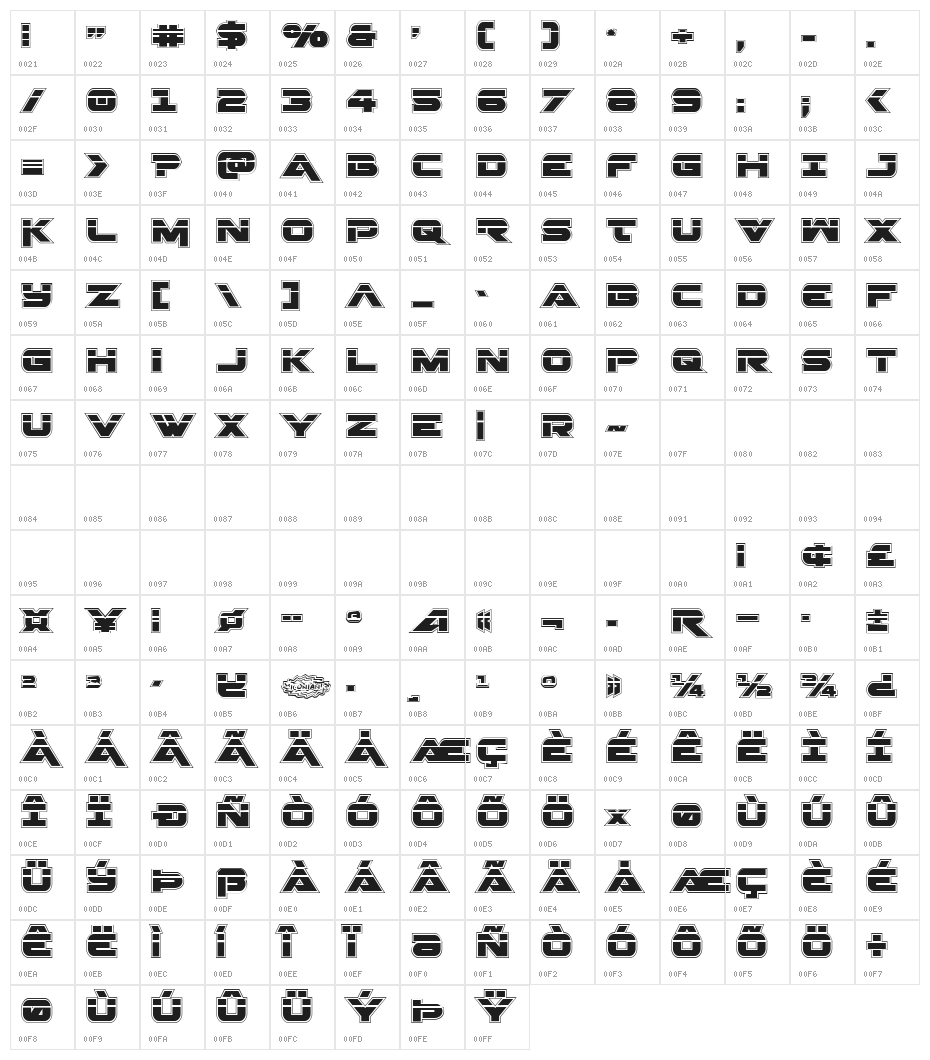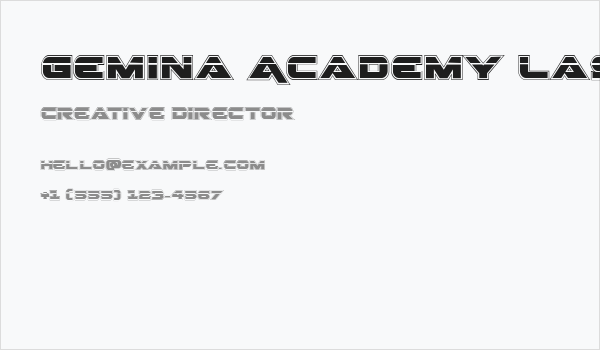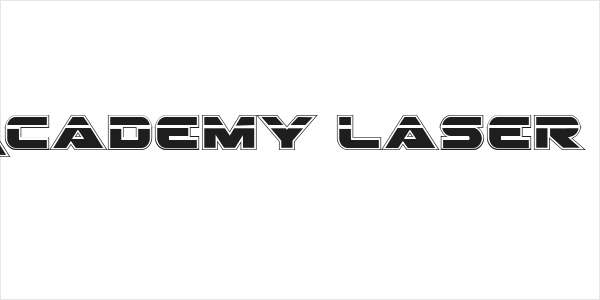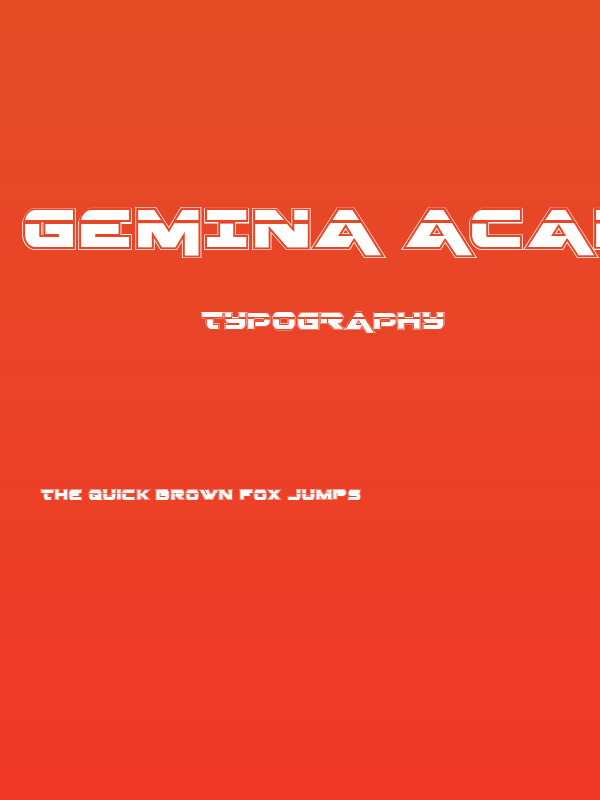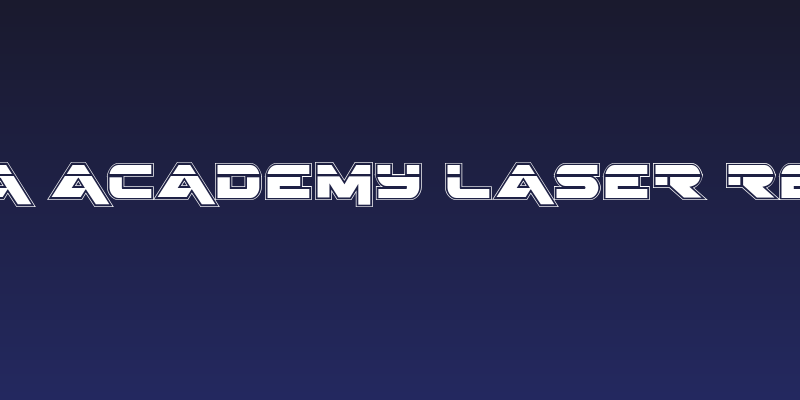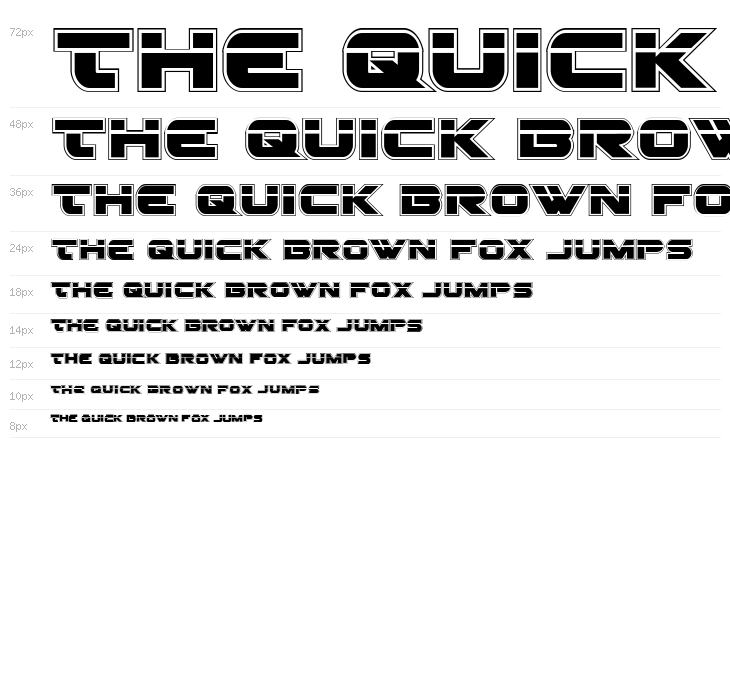
Gemina Academy Laser Regular Font
Gemina Academy Laser Regular Description
This font features a futuristic and geometric design, characterized by bold, angular shapes and a distinct outline that gives each character a three-dimensional appearance. The uppercase and lowercase letters maintain a consistent style, with sharp edges and a uniform thickness that creates a cohesive look. The numbers and special characters follow the same design principles, ensuring a harmonious overall aesthetic. This font's unique style makes it stand out, ideal for projects that require a modern and edgy feel.
| Proposed Projects | Ideal for sci-fi themed designs, video game titles, tech branding, and futuristic posters. |